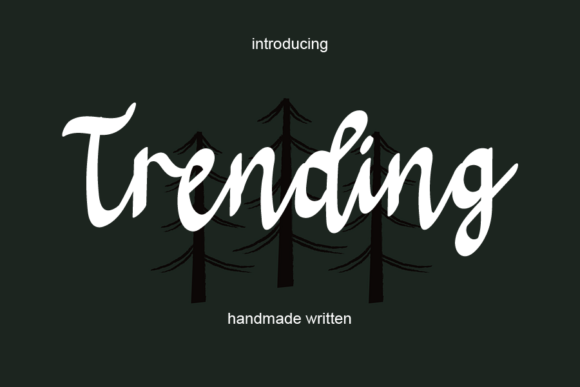
About Trending Font
Trending is a cute and delicate, lettered handwritten font that you can use for all chalkboard quotes or teaching material! Its authentic look will add a personal and realistic feel to your designs.